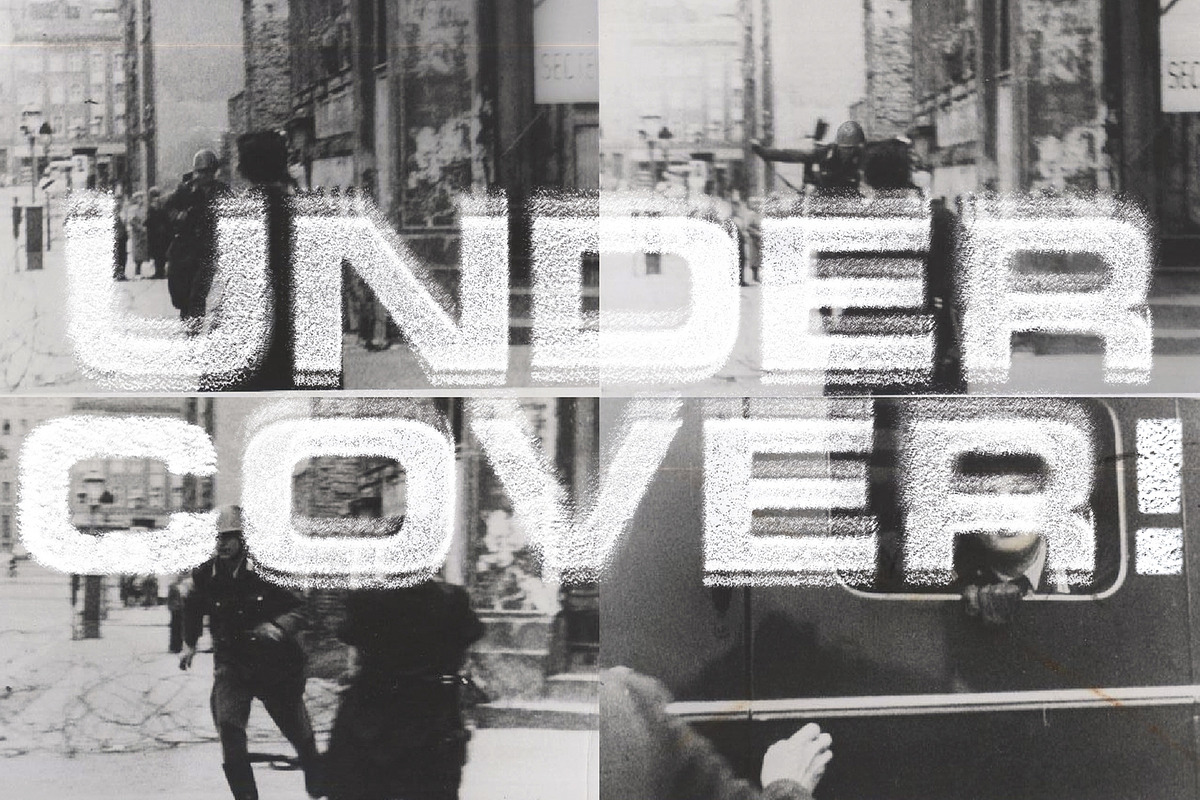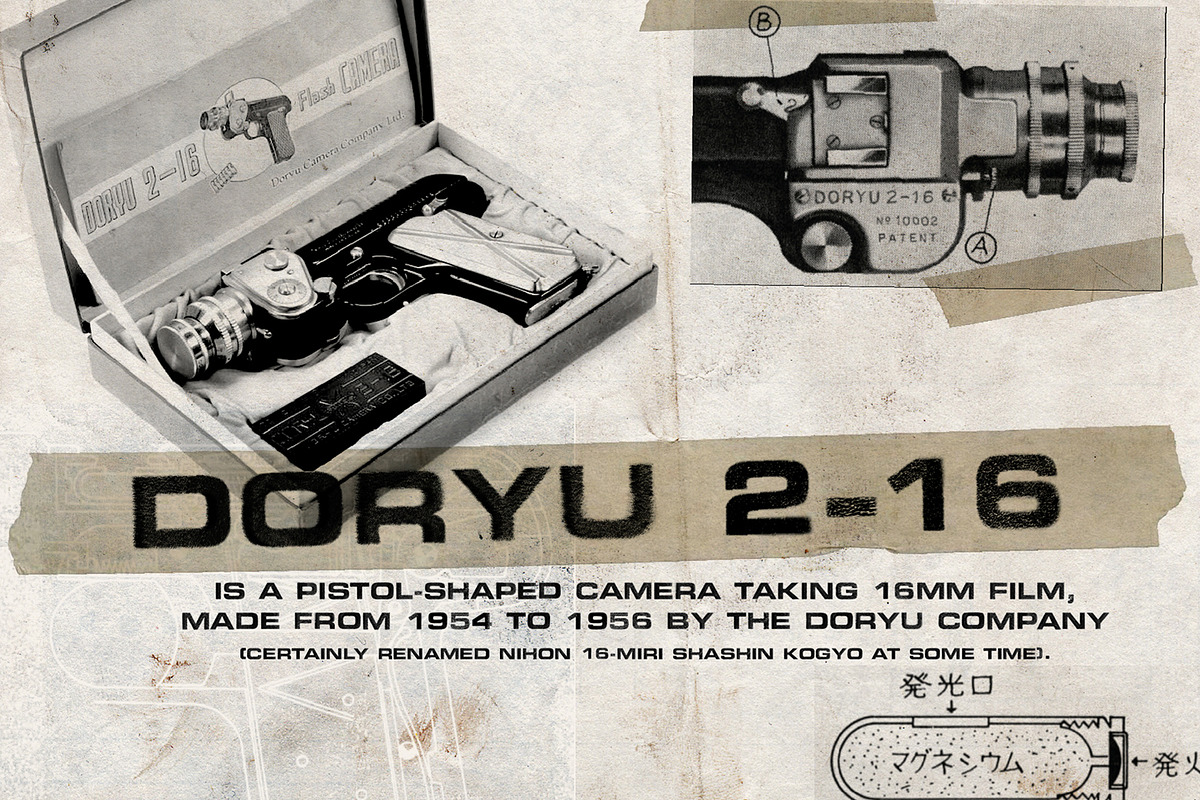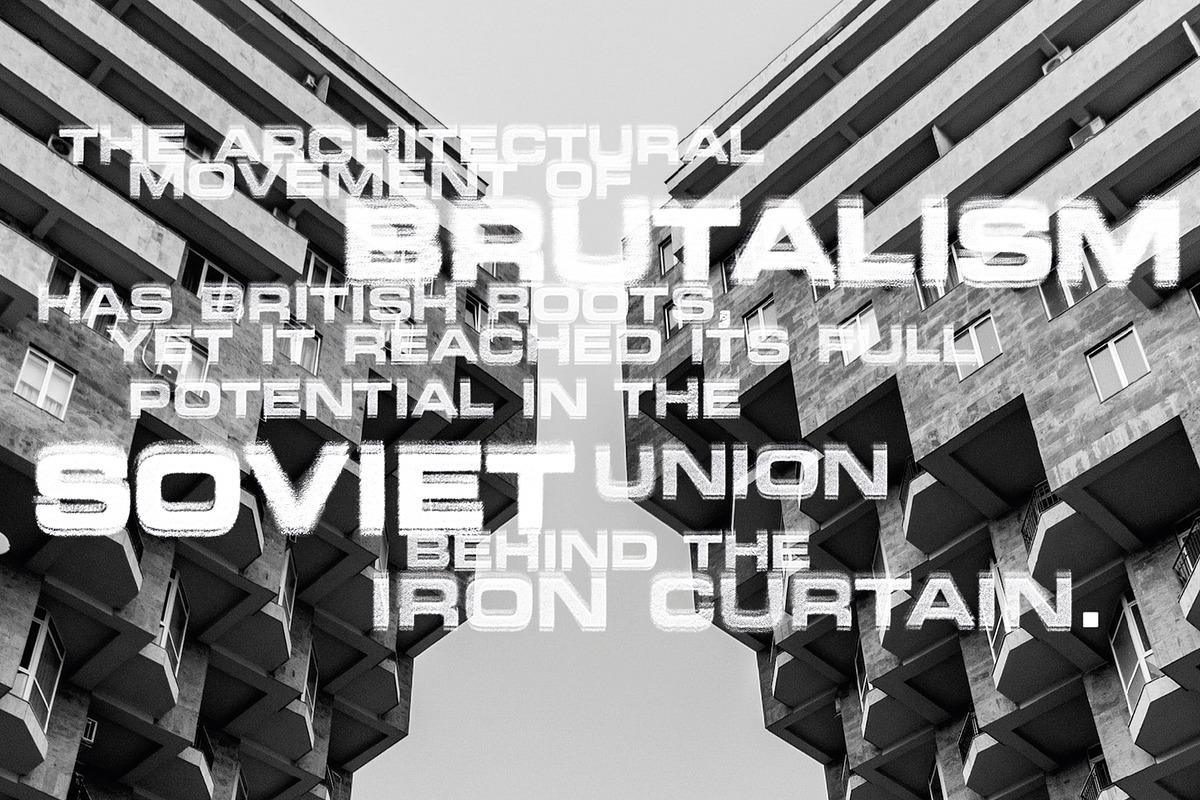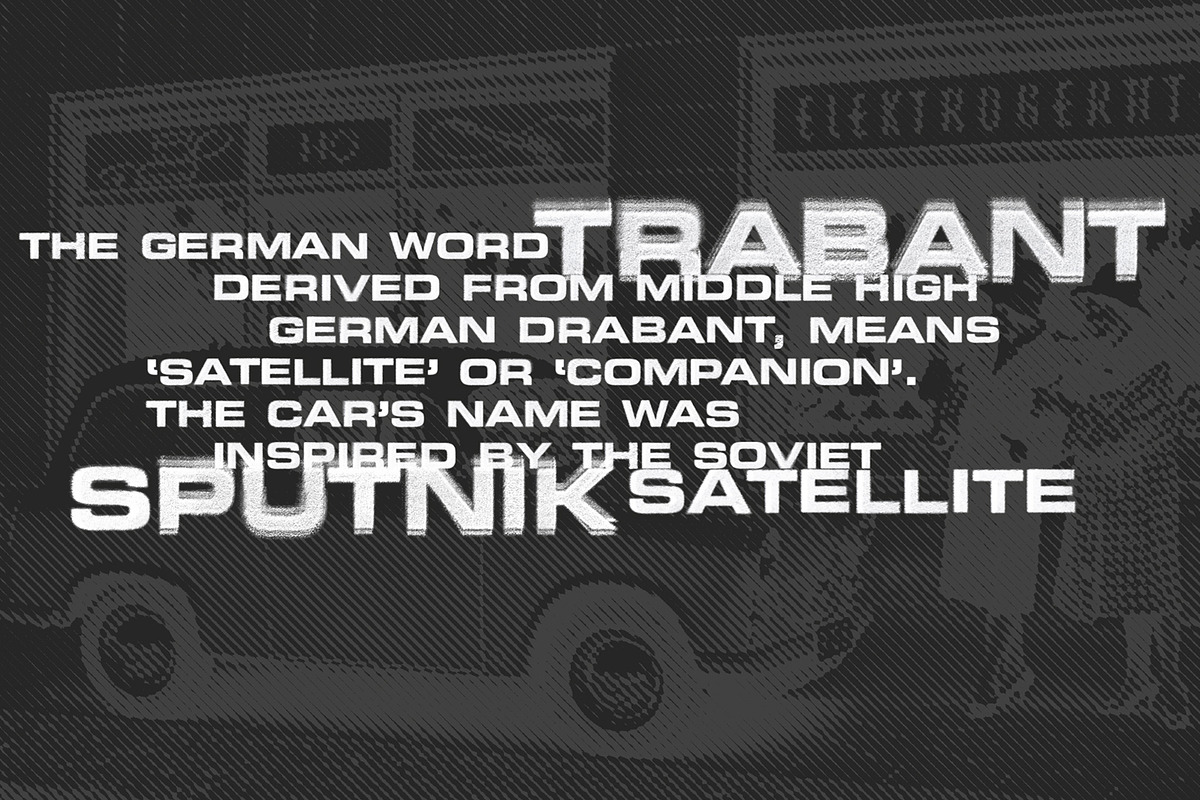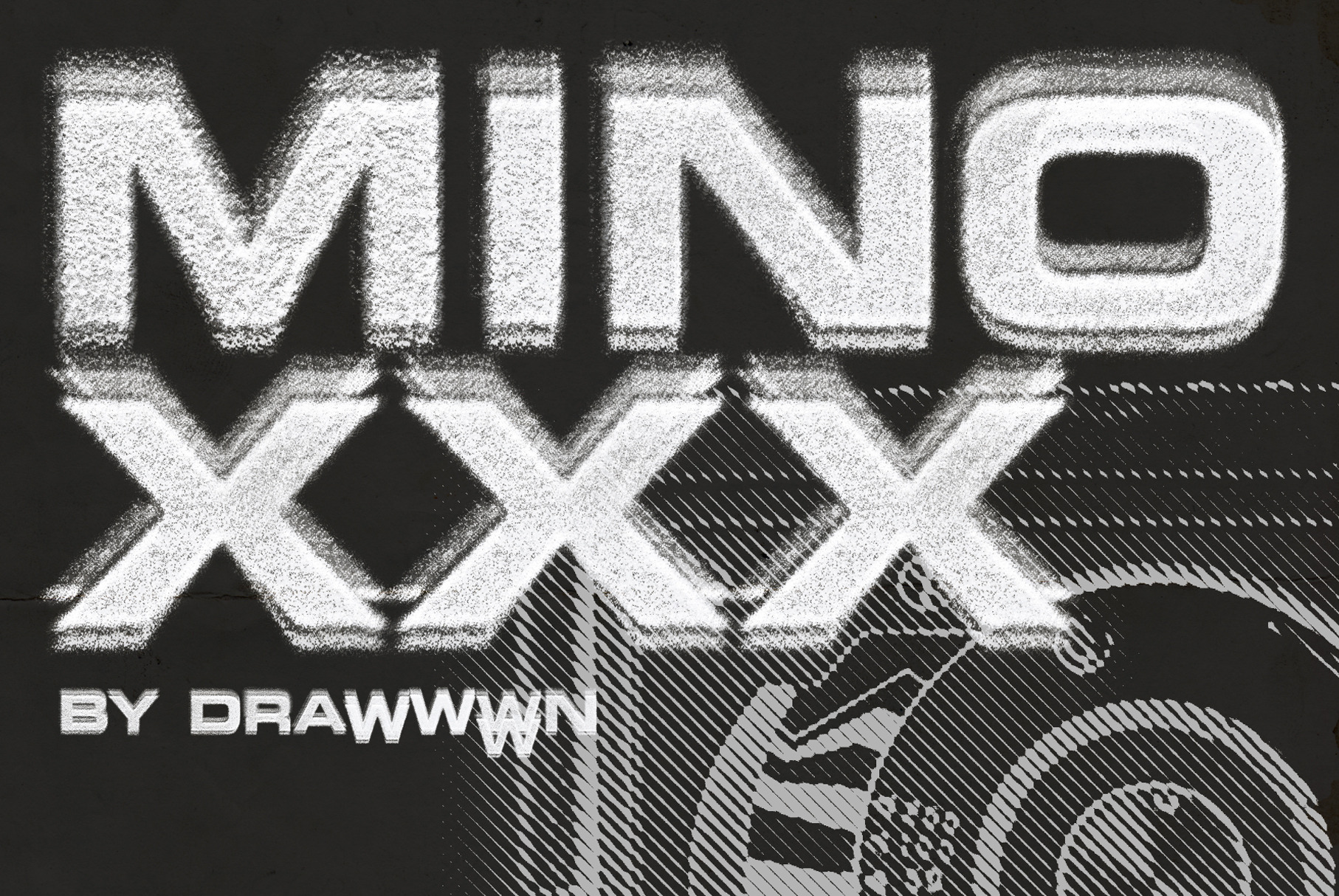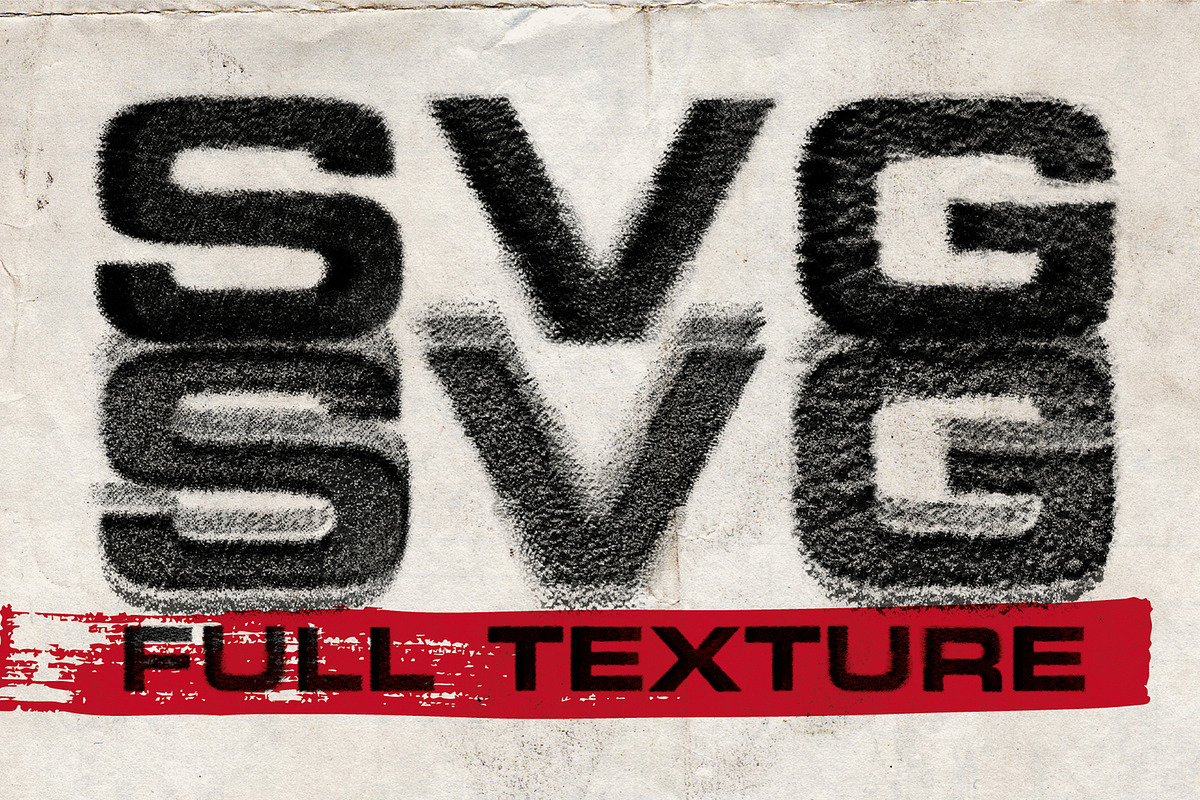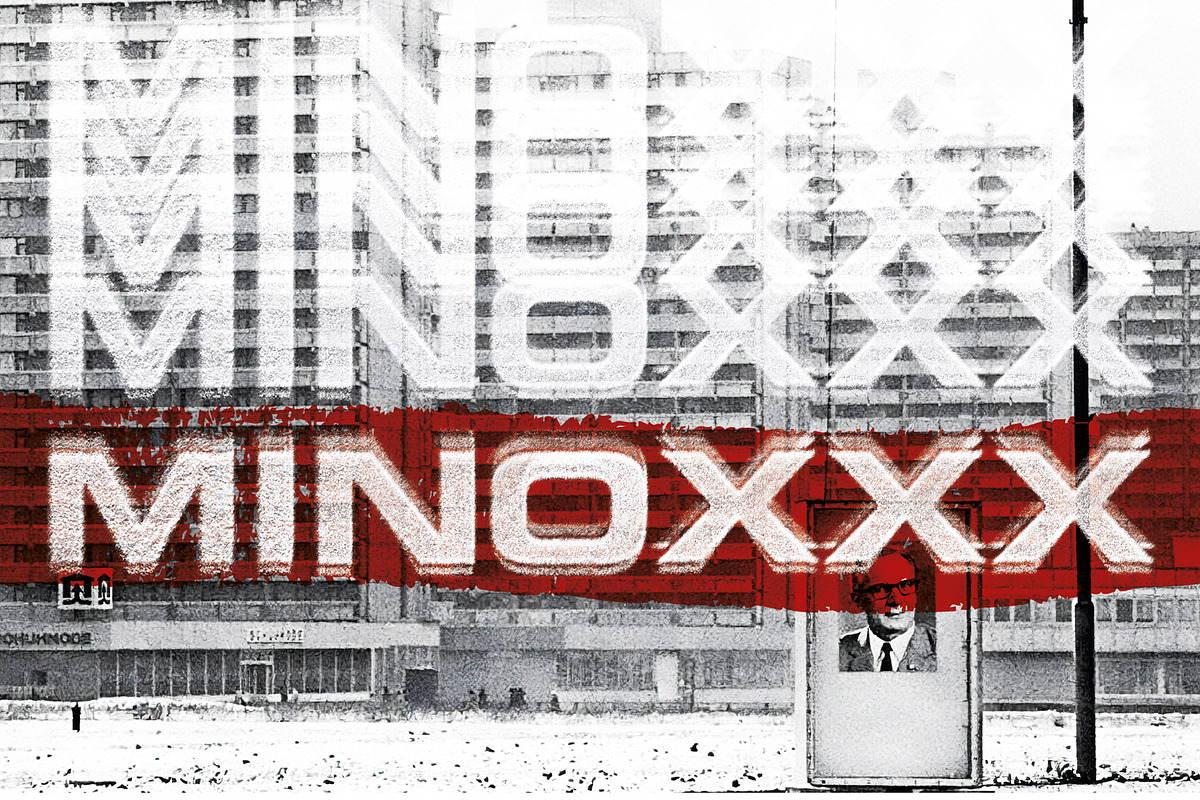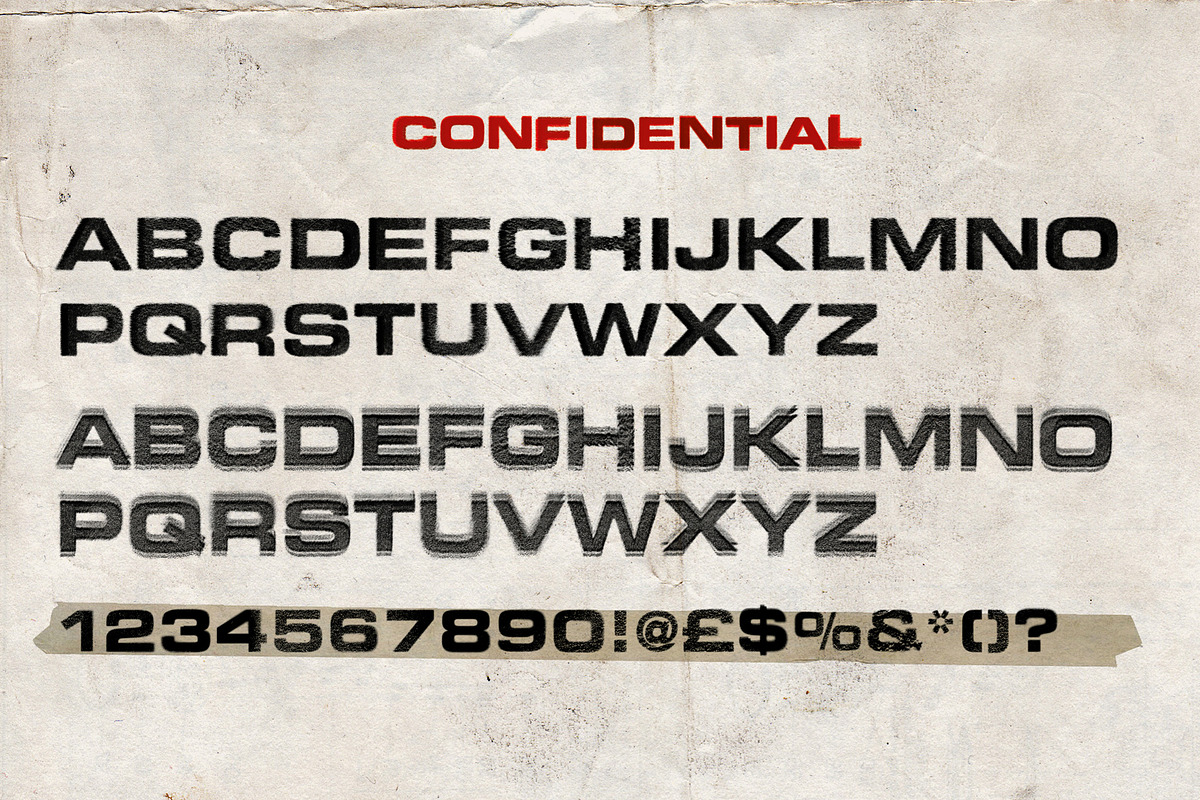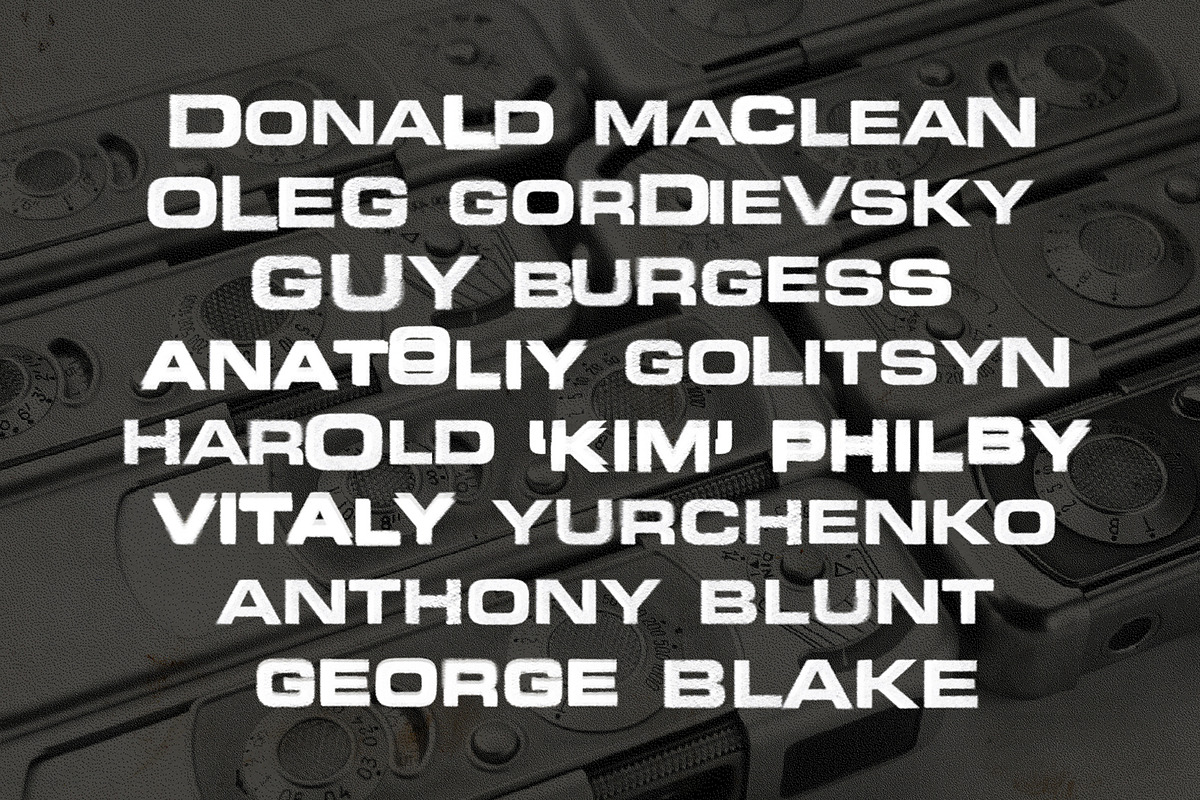
Minoxxx | Textured SVG font
Step into the shadows with Minoxxx (inspired by the Minox spy camera) —a rough, fully textured SVG font oozing with 1960s espionage style. From classified documents to secret missions, this typeface brings a vintage covert edge to any design.